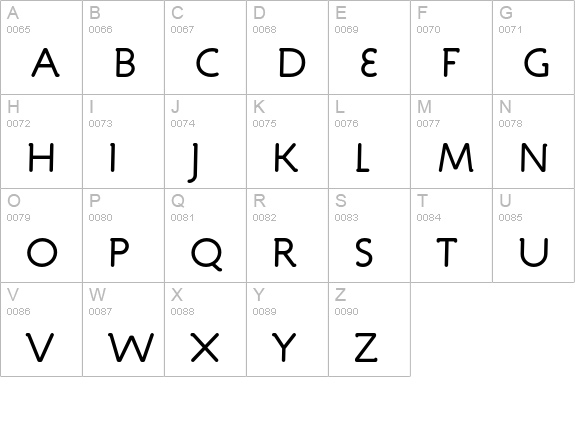
Engine-Caps font is a bold and modern typeface that exudes strength and sophistication. With its sleek lines and geometric shapes, this font is perfect for creating impactful headlines, logos, and branding materials. Engine-Caps font is versatile and can be used for a wide range of design projects, from posters to packaging. Best of all, Engine-Caps font is available for free download at FontsMarket.com. This means you can easily access this stylish font and use it in your creative projects without any cost. Download Engine-Caps font today and elevate your designs with its unique and eye-catching style.